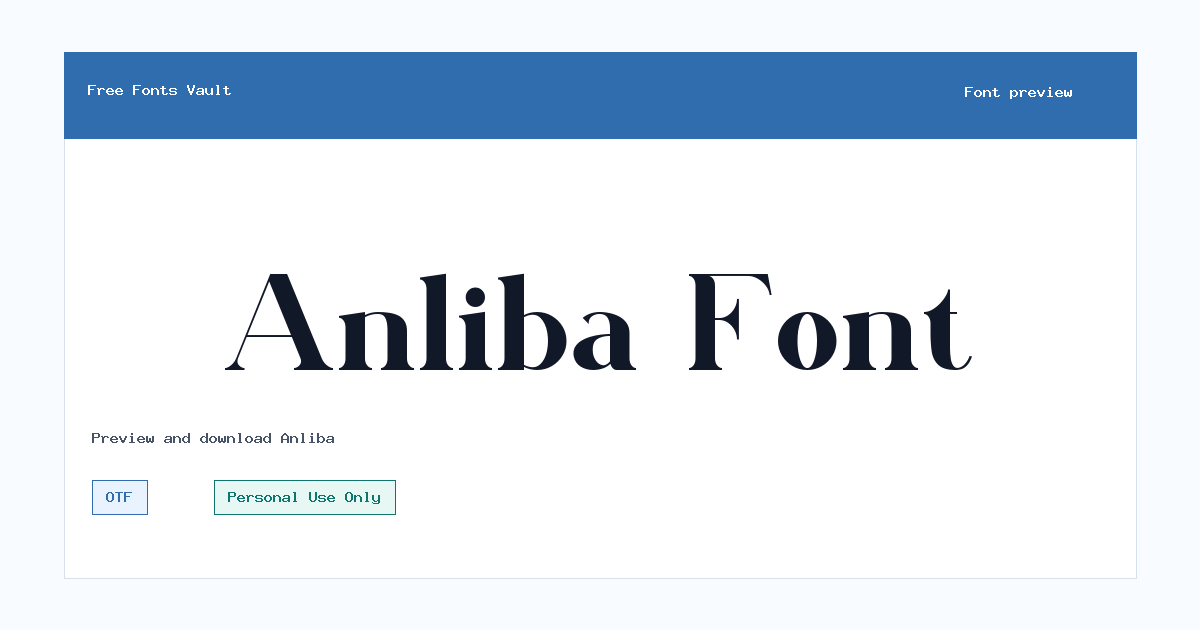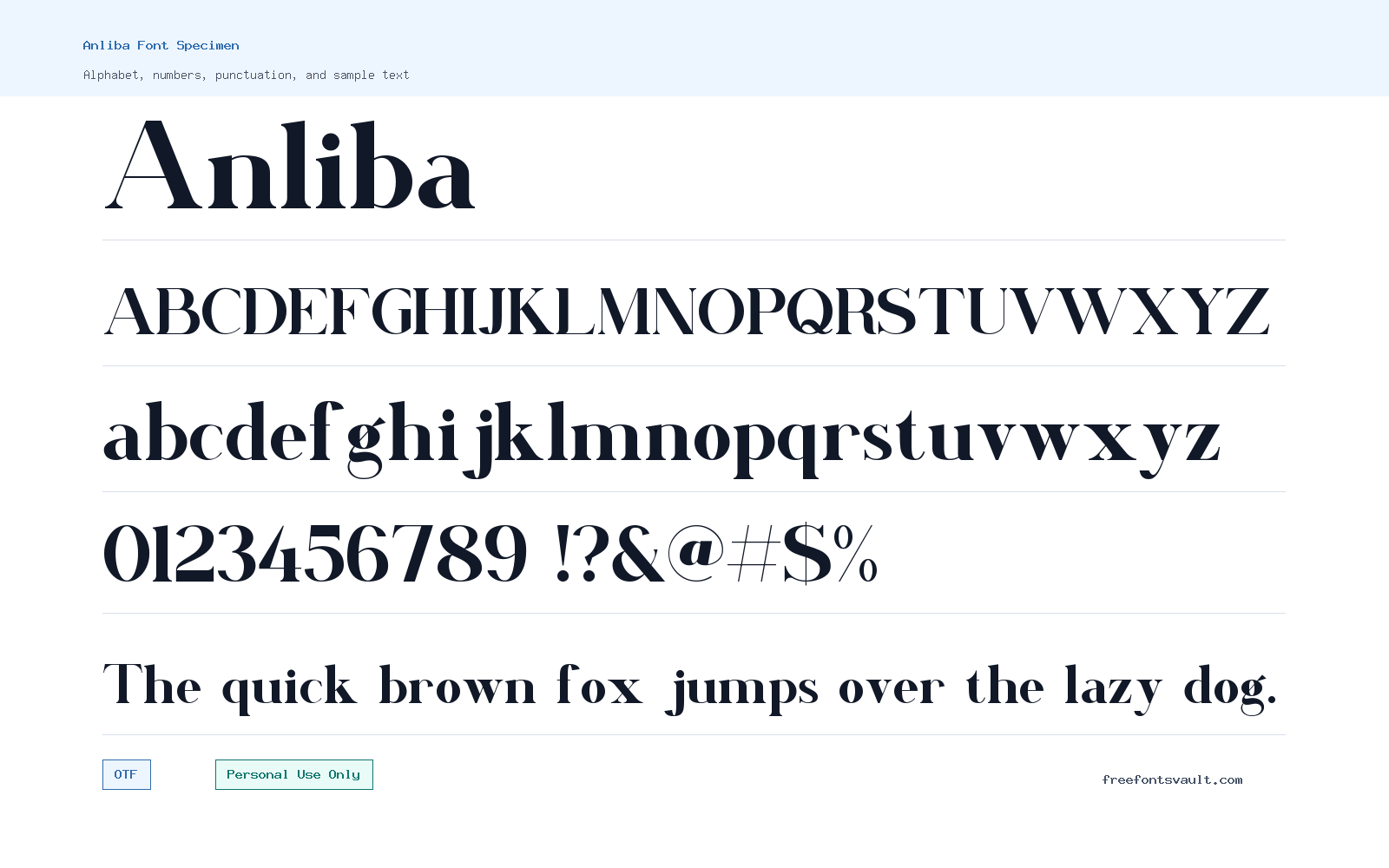
Anliba
Anliba font.
Anliba is a serif font family with a regular OTF file for personal projects. It is a good choice to preview when you need a clean, styled serif for short text, headings, and design mockups.
About Anliba Font
Anliba is presented as a serif font and comes in a regular style with normal weight. Because the download is an OTF file, it should work in most common design apps that support OpenType fonts, including layout, image editing, and presentation tools. The font is best tested at display sizes first, since a serif style often shows its character more clearly in titles than in small body copy.
- Serif style suited to headings, short display lines, and decorative text settings.
- Regular style in normal 400 weight, useful as the main style for simple font testing.
- Personal invitations, greeting cards, posters, and social graphics.
- Title treatments, name previews, quote art, and moodboard typography.
- Non-commercial branding drafts or layout mockups where a serif look is needed.
What is Anliba best used for?
Anliba is best tested for short text such as headings, invitations, quote graphics, personal posters, and design previews.